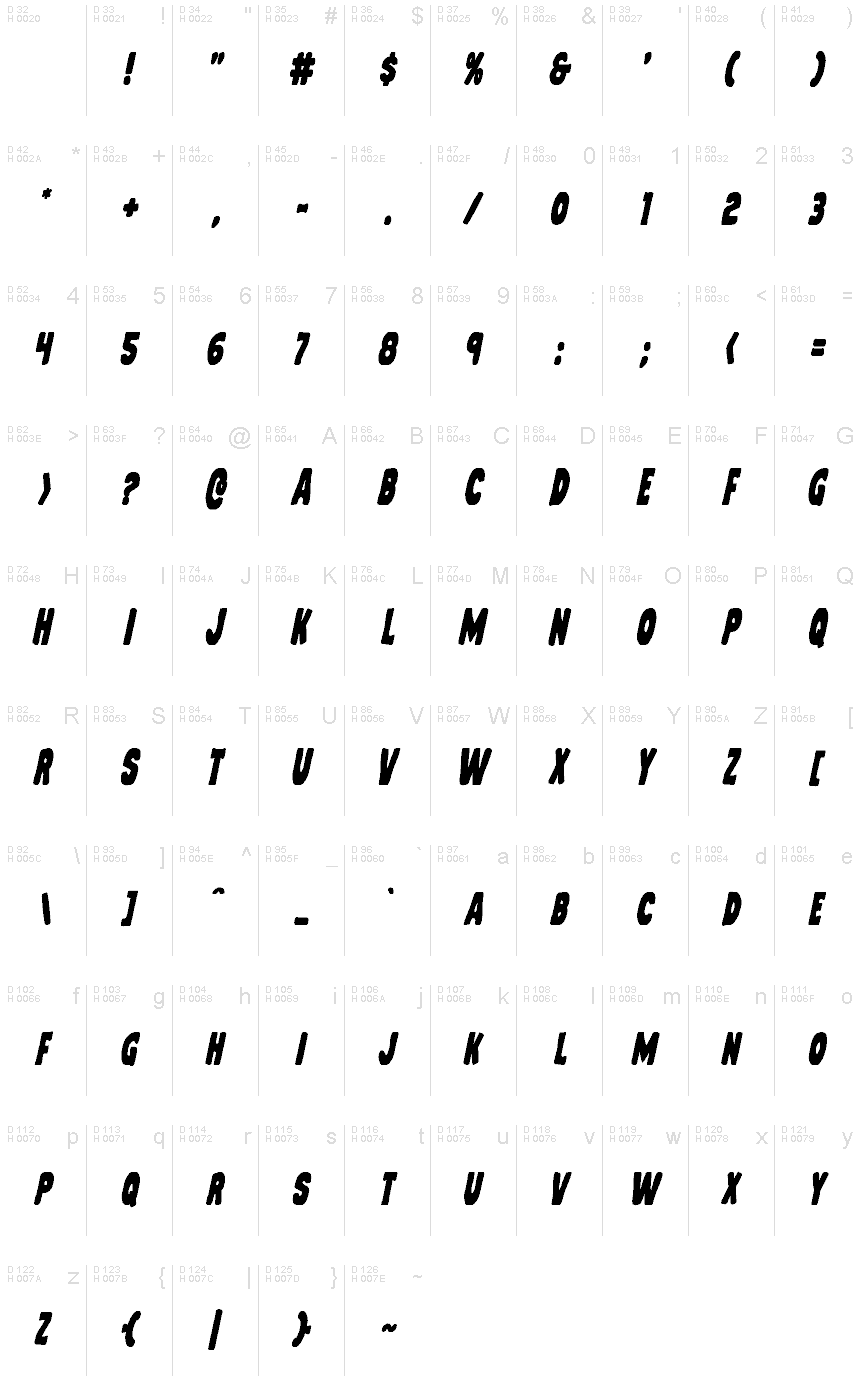
Mystery Mobile Condensed Ital
Mystery Mobile Condensed Italic font is an energetic, bold, and condensed typeface from the Mystery Mobile family by Iconian Fonts. It showcases exaggerated curves with a bold presence along its condensed structure. Inspired by the retro aesthetics of the 1960s, this cartoon display font is all about bringing out engaging visuals with a vivid impact.
This free logo-suitable font can turn headings in branding projects into focal points that resonate well with audiences. It’s also perfect for ads, promotional materials, vintage-themed designs like posters or flyers for parties and theater plays among others. Packaging design in clothing or other consumer niches is yet another area where this item will excel undoubtedly!